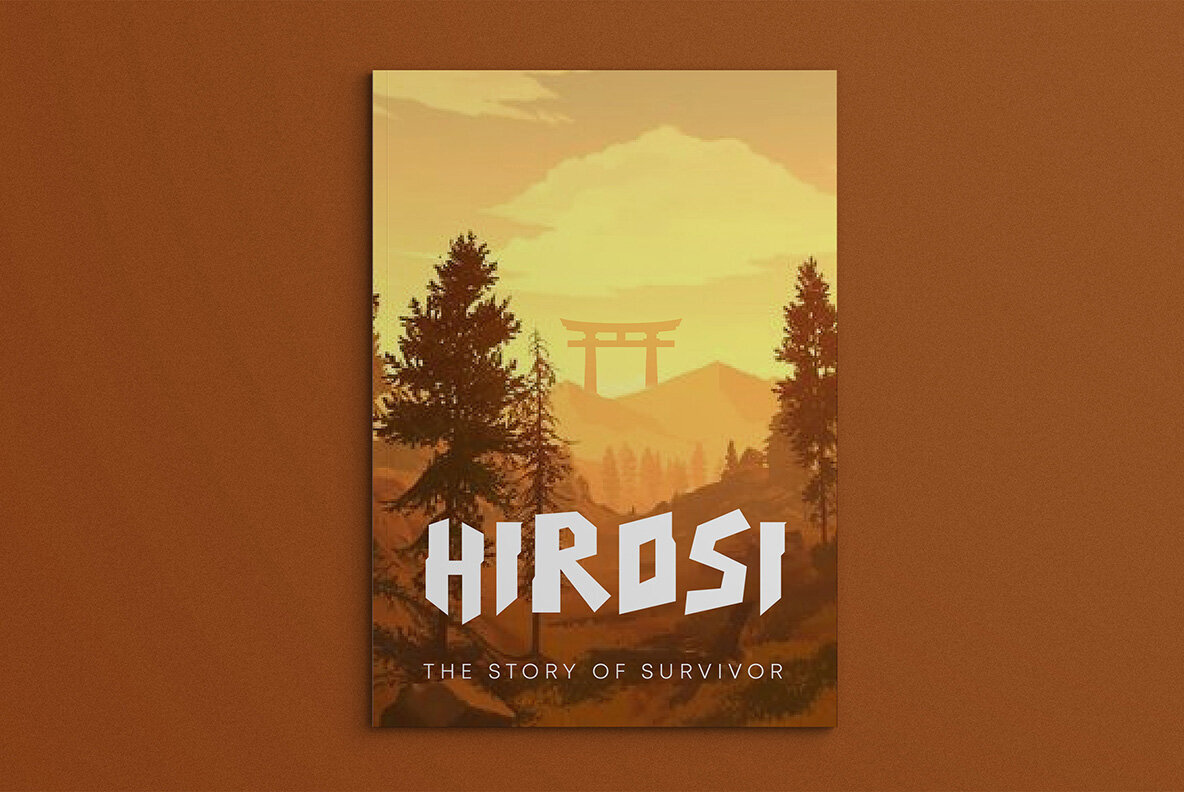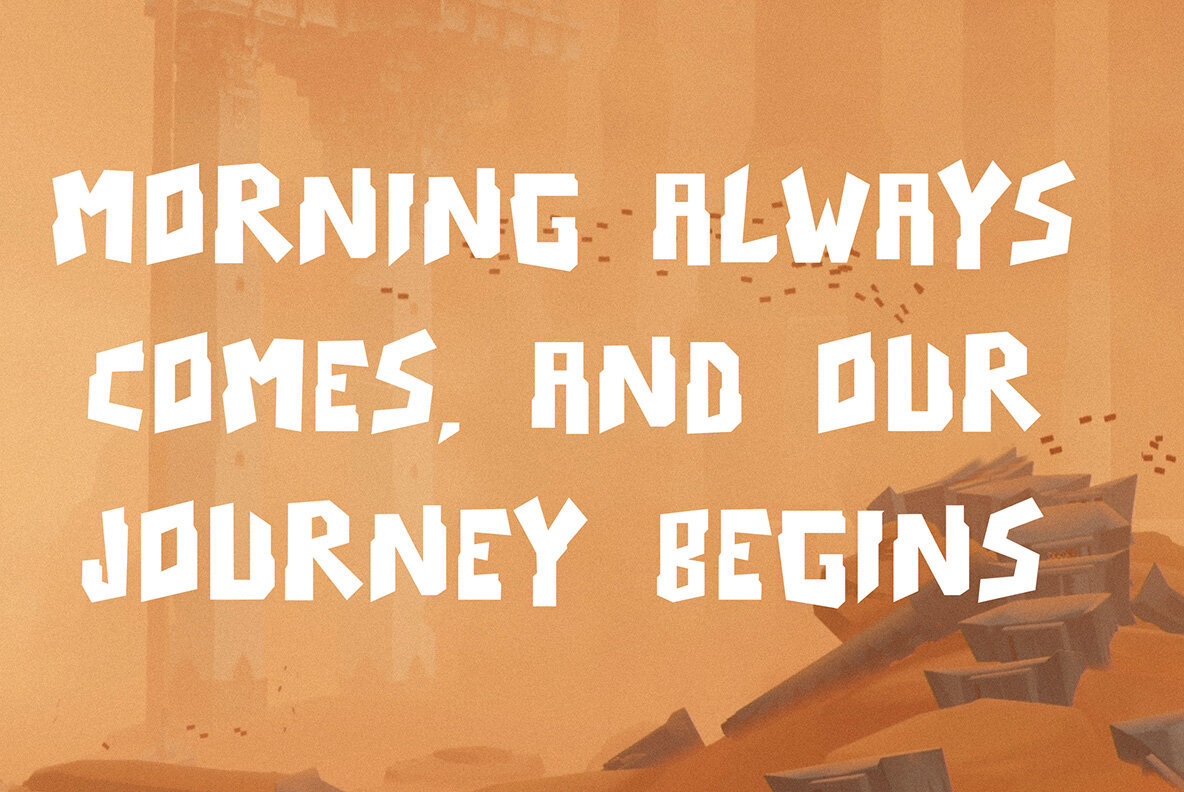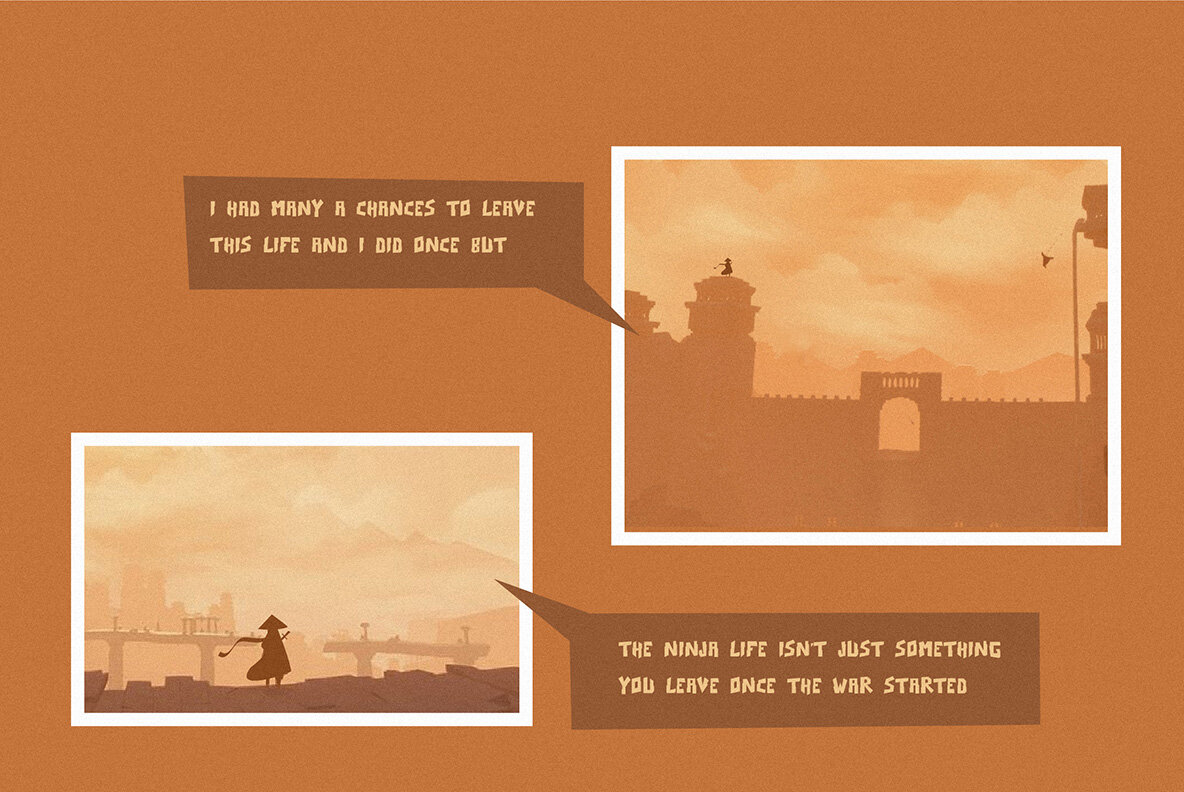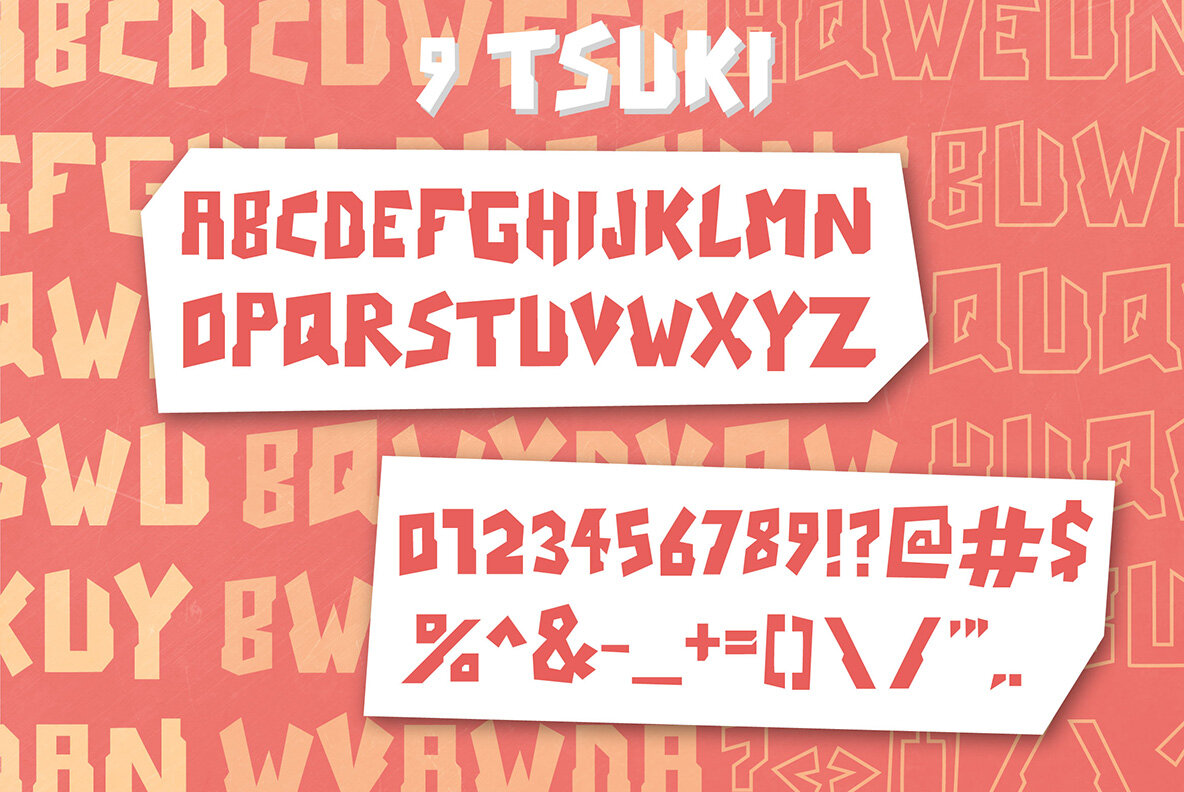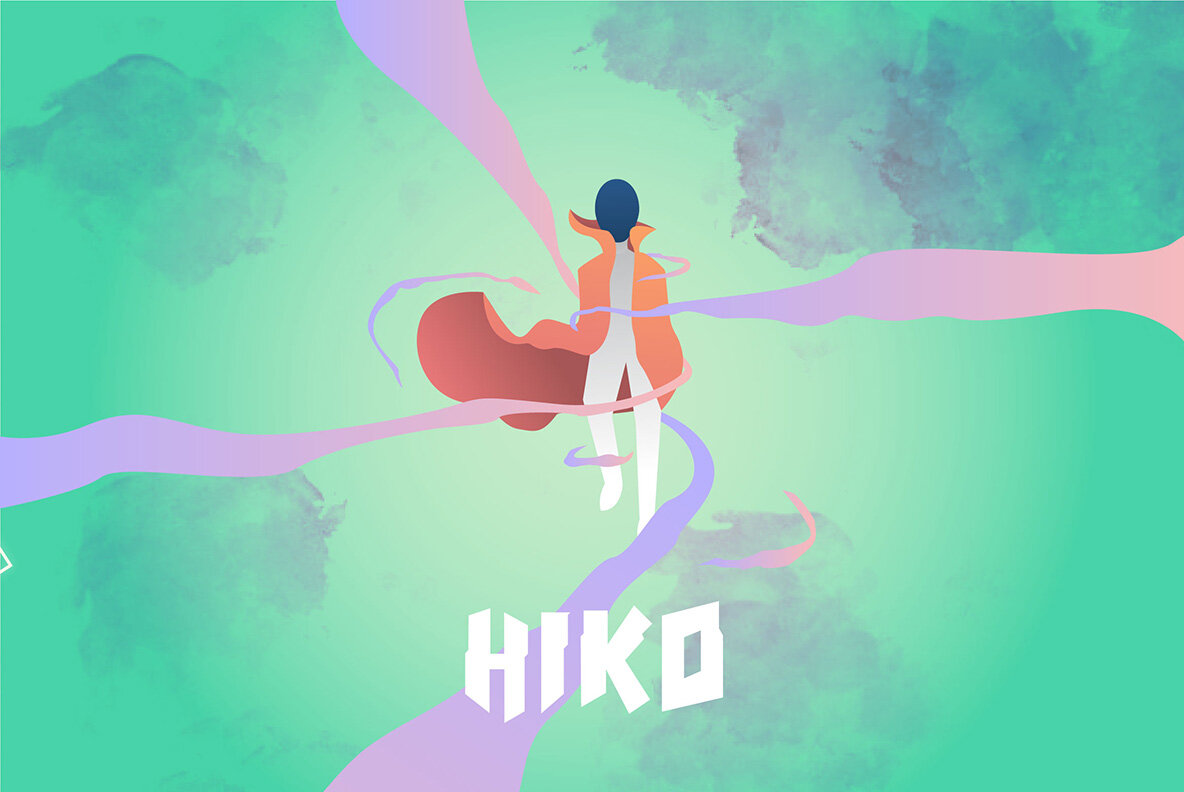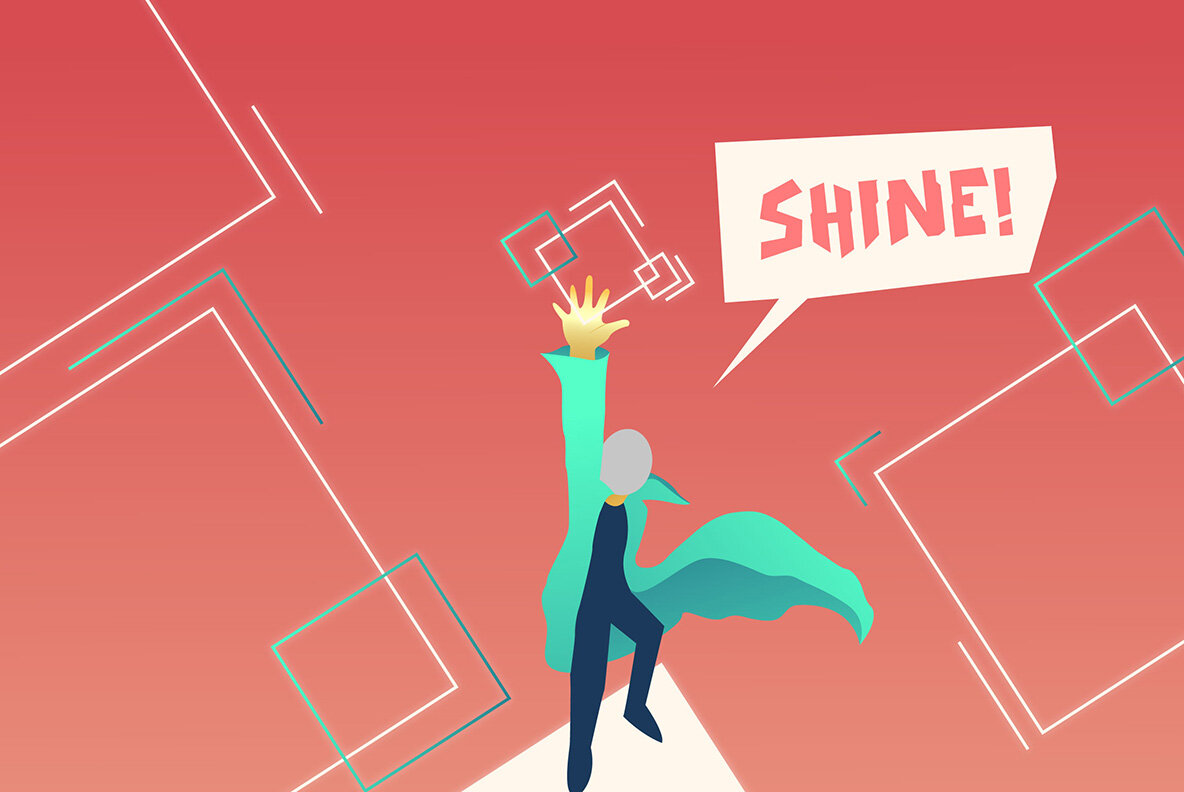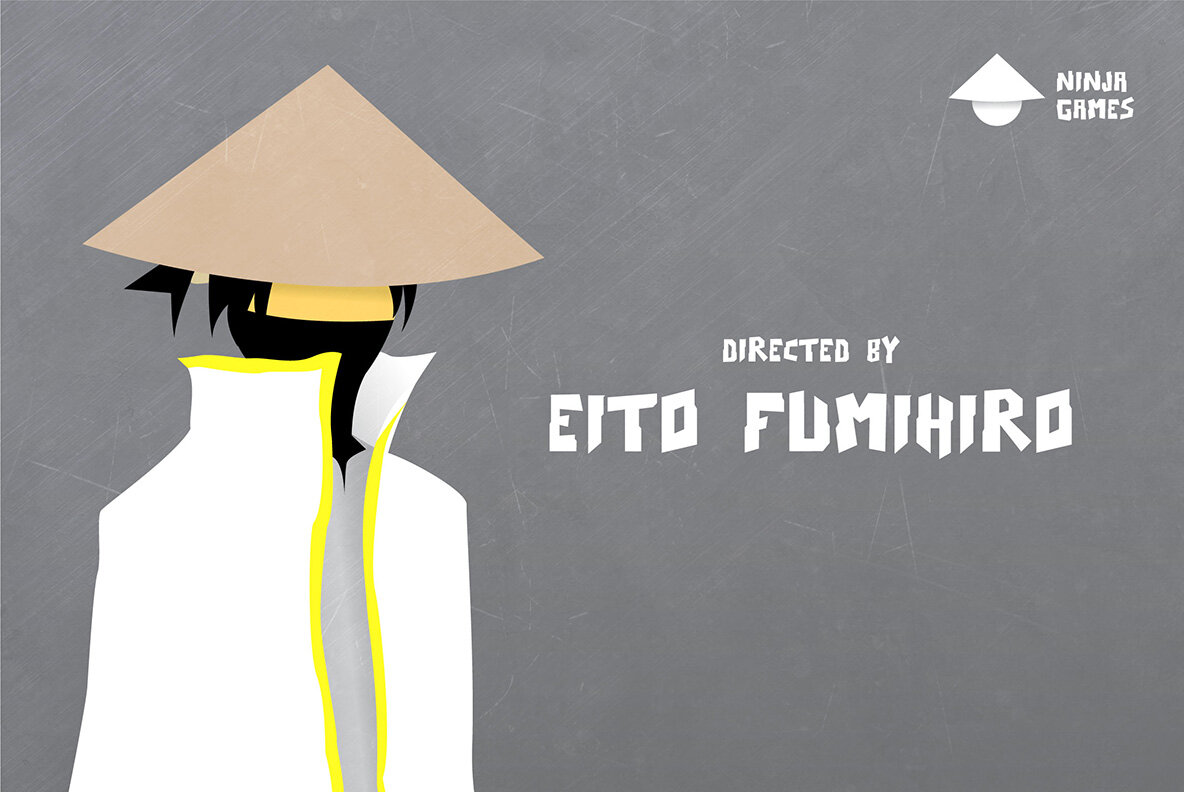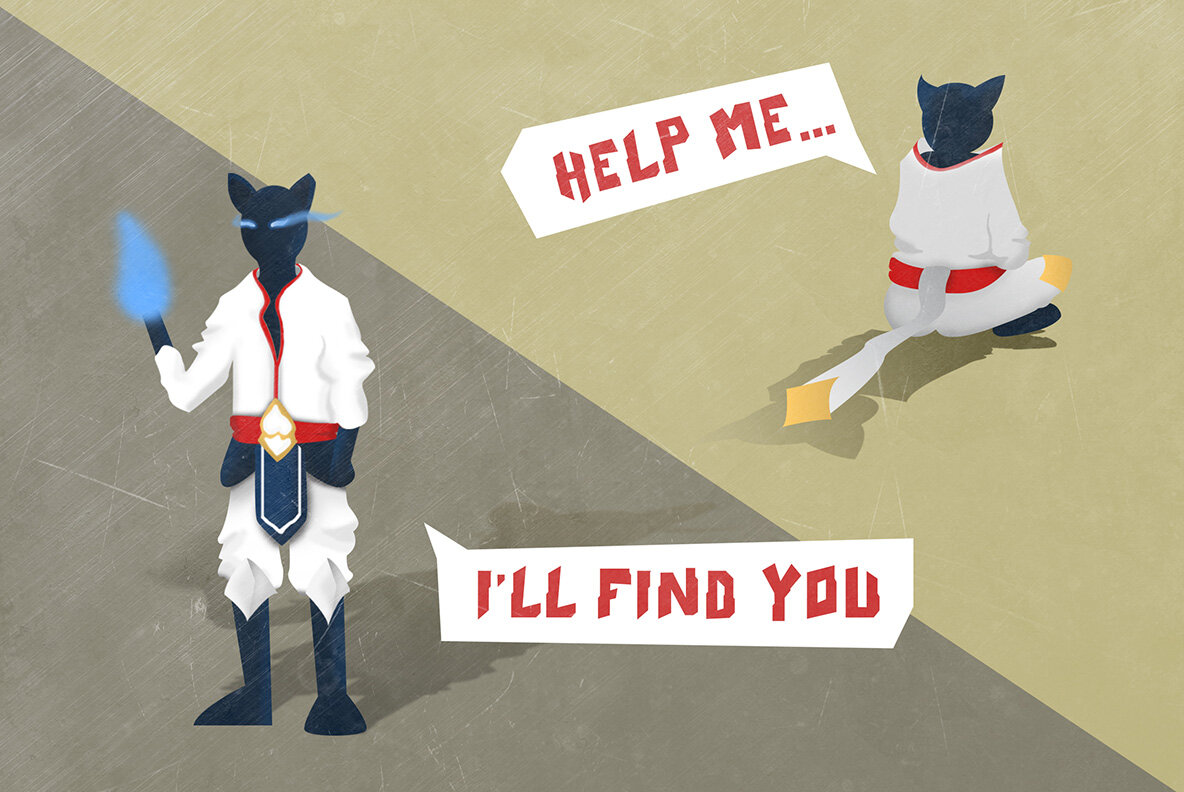
Nine Tsuki Font
Nine Tsuki Regular
Nine Tsuki is a unique sans-serif typeface that captures the essence of Japanese manga and the dynamic world of video games. Its distinctive style is perfect for projects requiring a playful yet professional vibe. Whether designing for print or digital media, Nine Tsuki offers versatility across comics, games, and more. Features:Nine Tsuki: A Manga-Inspired Sans-Serif